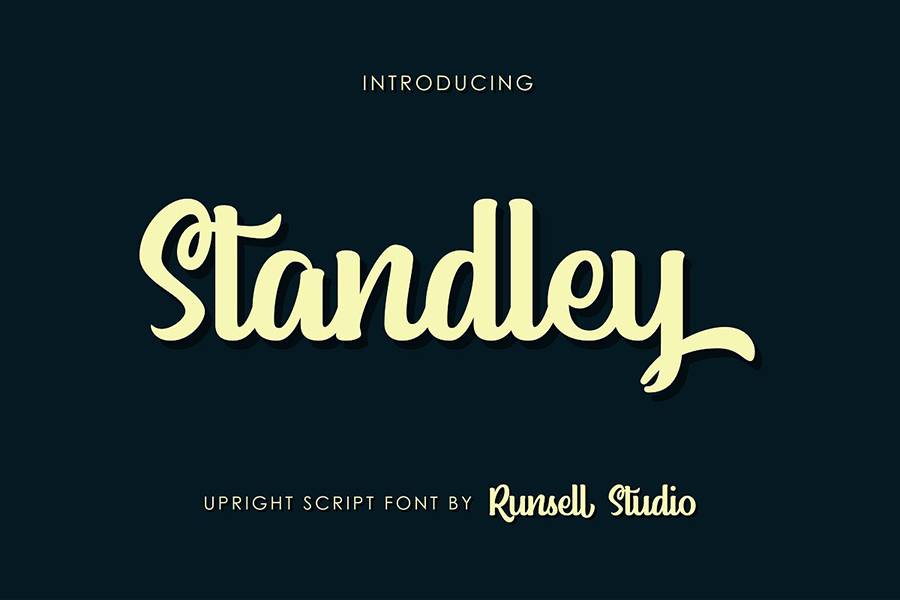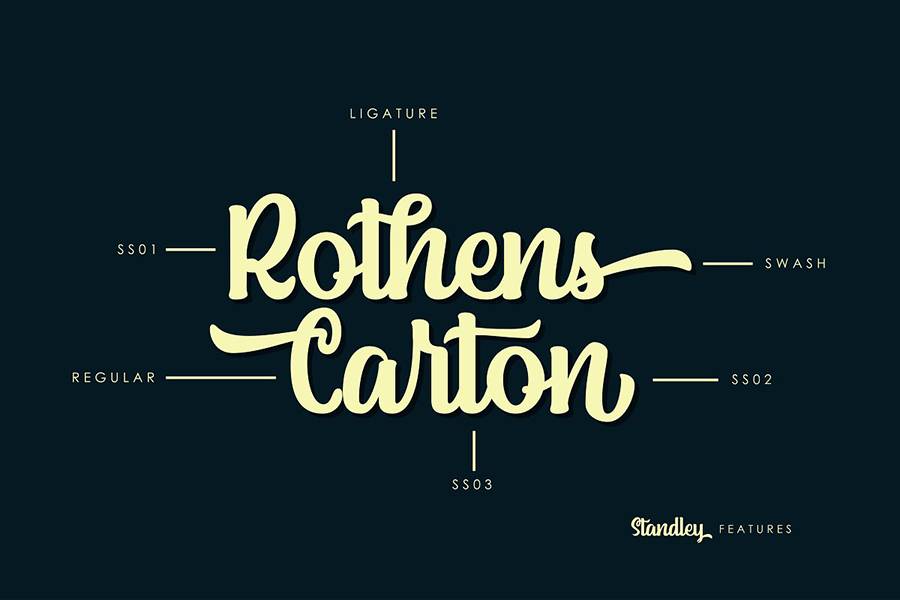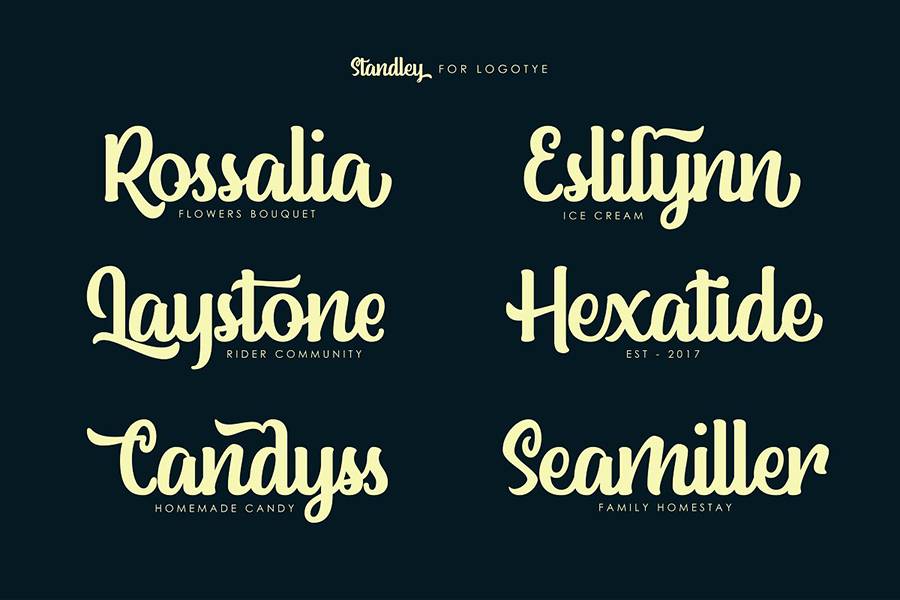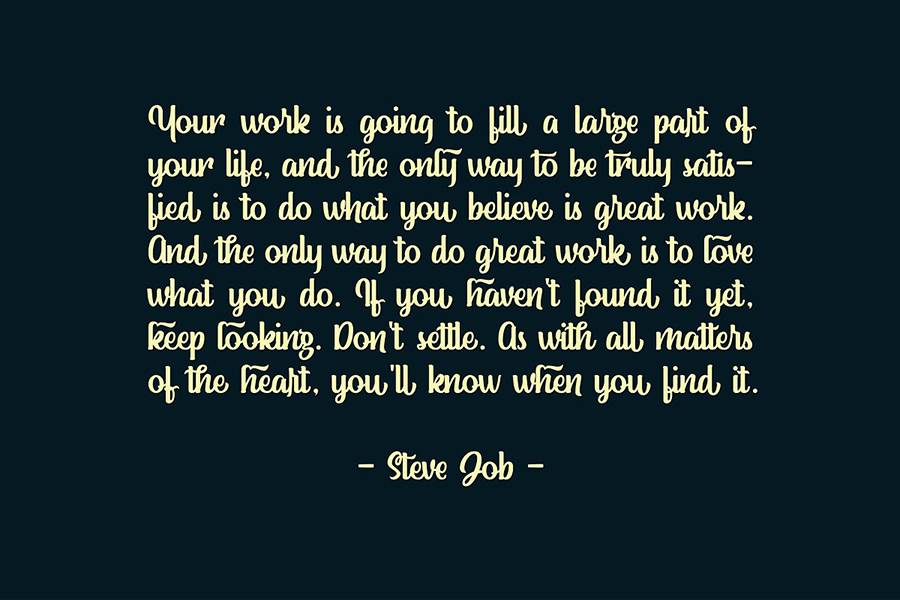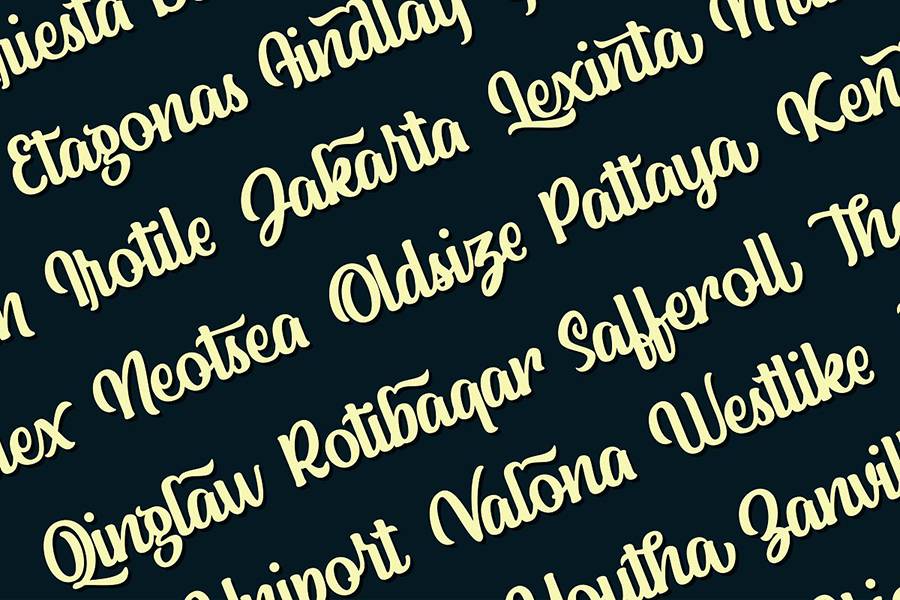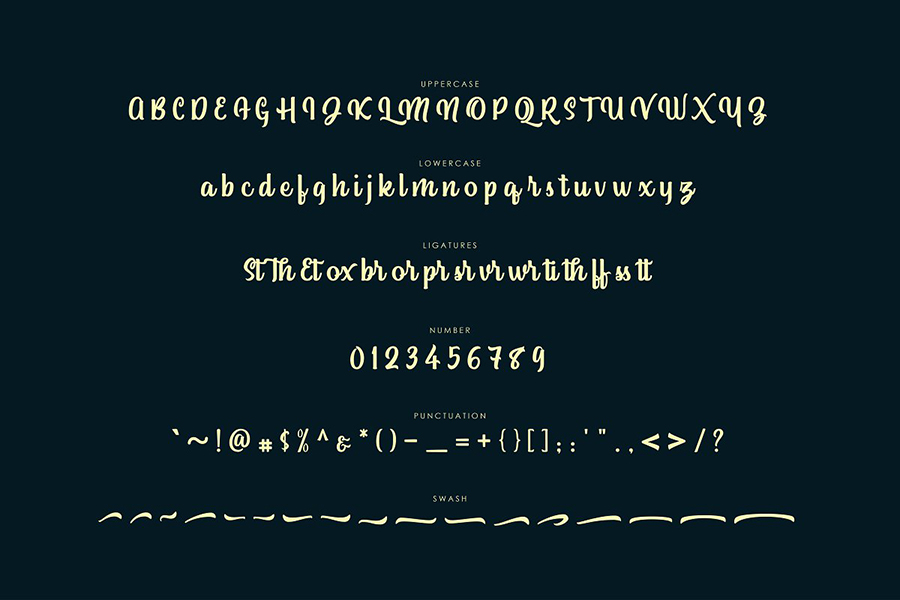
Standley Upright Script Font is a bold and playful script typeface with an upright posture that combines strong, rounded strokes with whimsical, hand-drawn flair. Its consistent weight and smooth curves give it a friendly and approachable feel, making it ideal for creative branding, packaging, and eye-catching headlines where a lively yet polished personality is desired. This font works best when used to add a personal, cheerful touch to design projects that seek warmth and character.
Standley Upright Script Font
About Standley Upright Script Font
| Font family | Standley Upright Script Font |
| Release date | 2017-07-30 |
| Designer | Satia Hayu Prabowo |